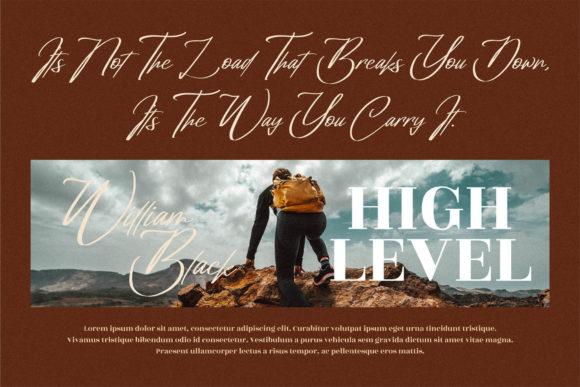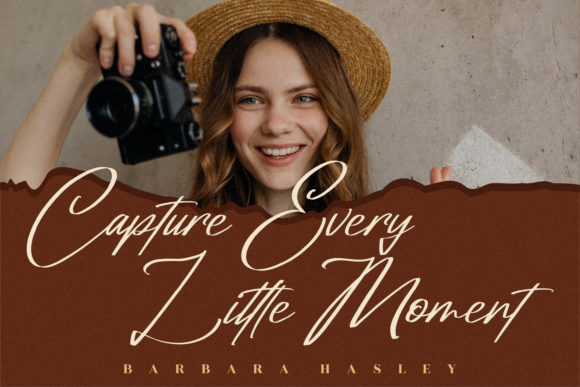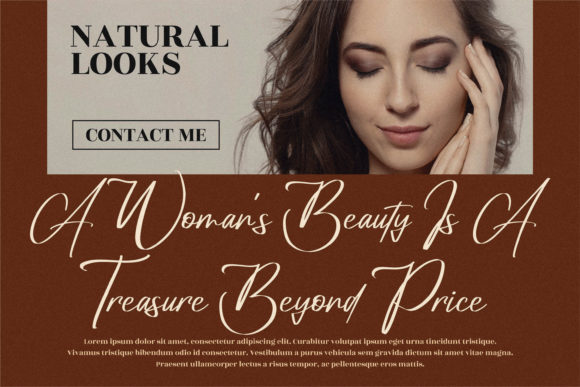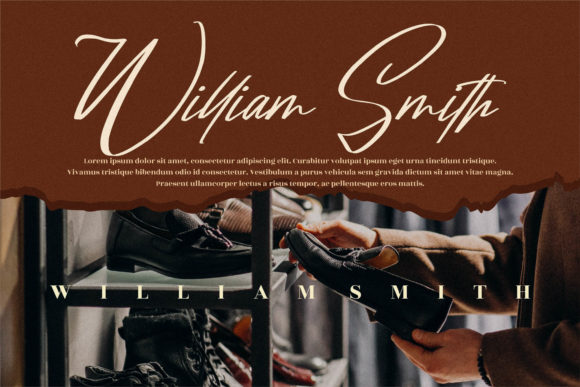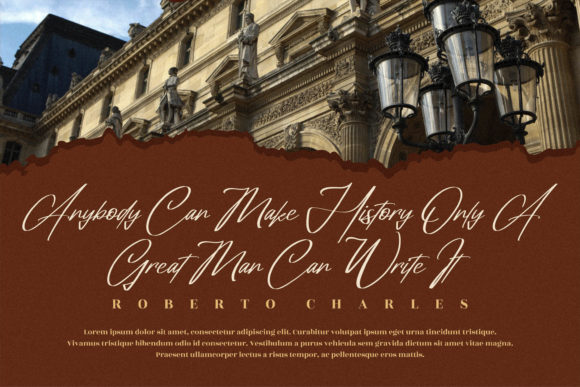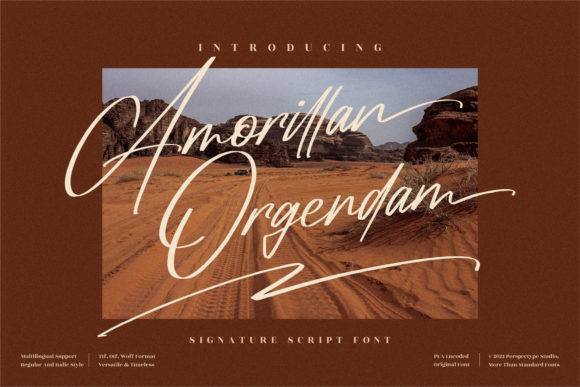
The Amorillan Orgendam Font: A Delicate Beauty for Your Designs
Have you ever been in the middle of a design project, and suddenly, you just can’t seem to find the right font? I know I have. It’s like trying to find that one perfect piece of fabric for your craft project – it’s out there, but where? Recently, I was working on a project for a client who wanted a elegant and sophisticated look, and that’s when I stumbled upon the Amorillan Orgendam font. Let me tell you, it was love at first sight! 💕
So, what makes Amorillan Orgendam so special? Here are a few things I love about this beautiful script font:
- ✨ It’s incredibly thin and delicate, making it perfect for designs where you want to add a touch of elegance.
- 💃 It’s a script font that’s not too over-the-top, making it suitable for a wide range of design projects.
- 🤔 The font can be a bit finicky when it comes to kerning, so you may need to adjust it manually.
- ⚠️ Some of the swashes can be a bit too ornate for certain designs, so use them sparingly.
The Story Behind Amorillan Orgendam
While I couldn’t find any information on the actual designer of Amorillan Orgendam, I like to think that it was created by a designer who loves elegant and sophisticated design. Perhaps they were inspired by the beautiful calligraphy of the past, and wanted to create a font that would bring a touch of that elegance to modern designs.